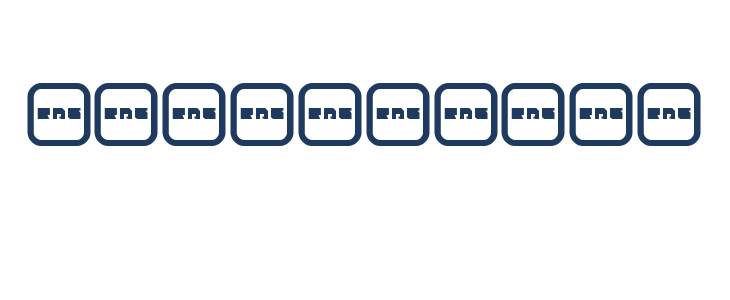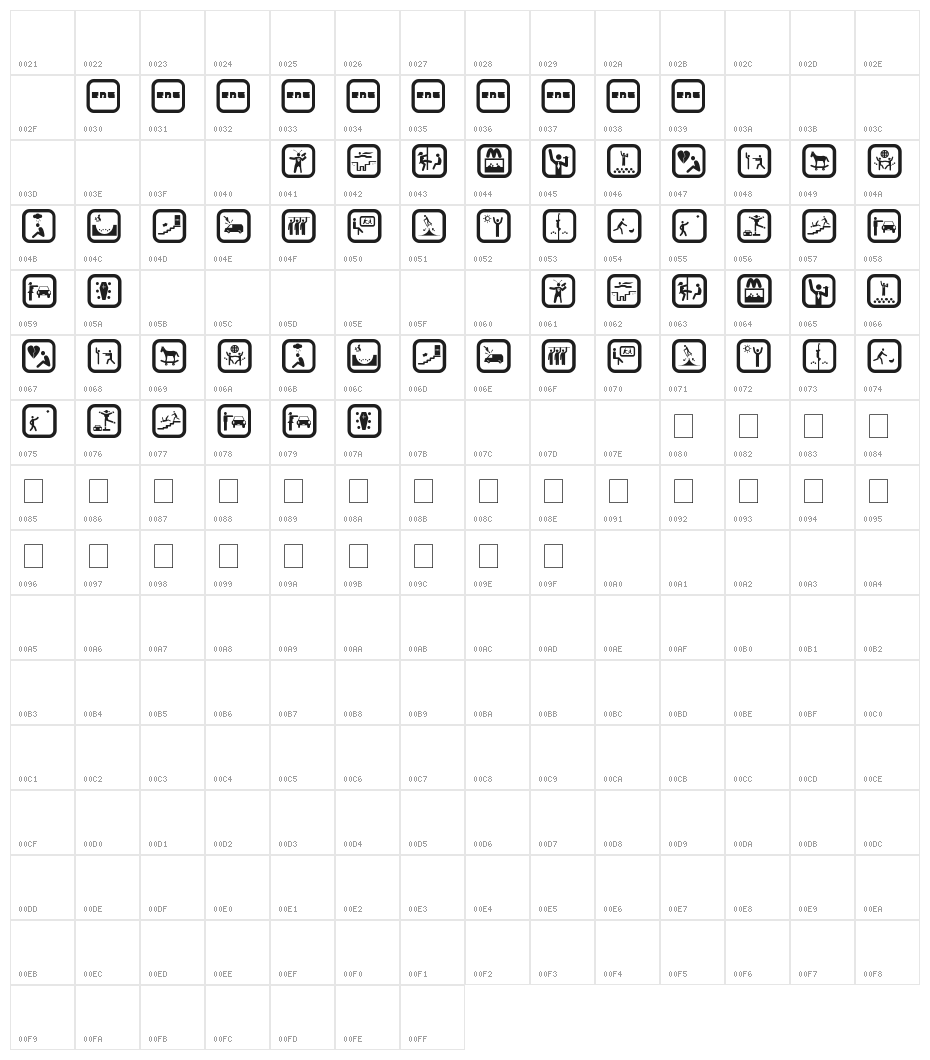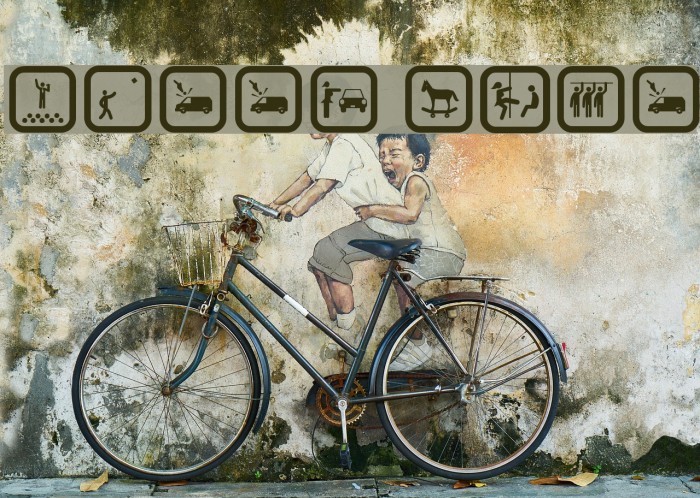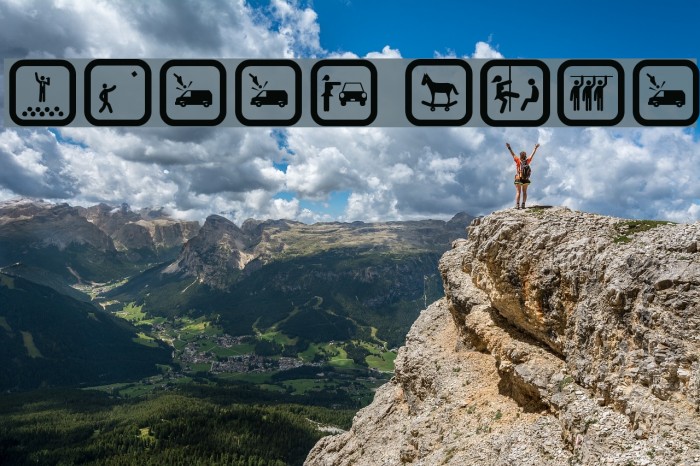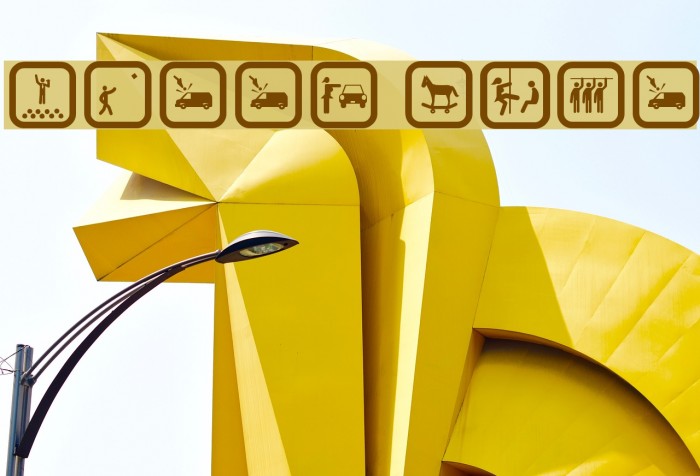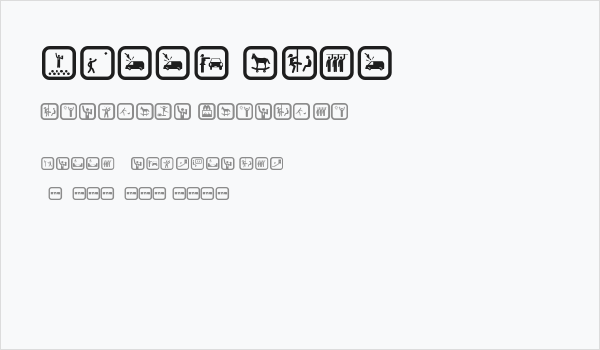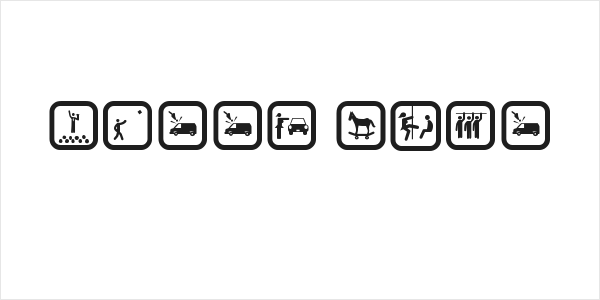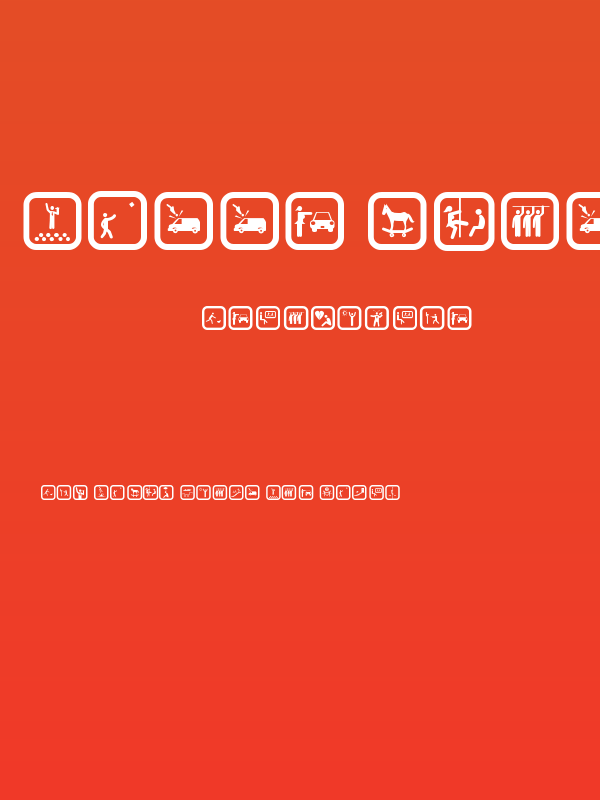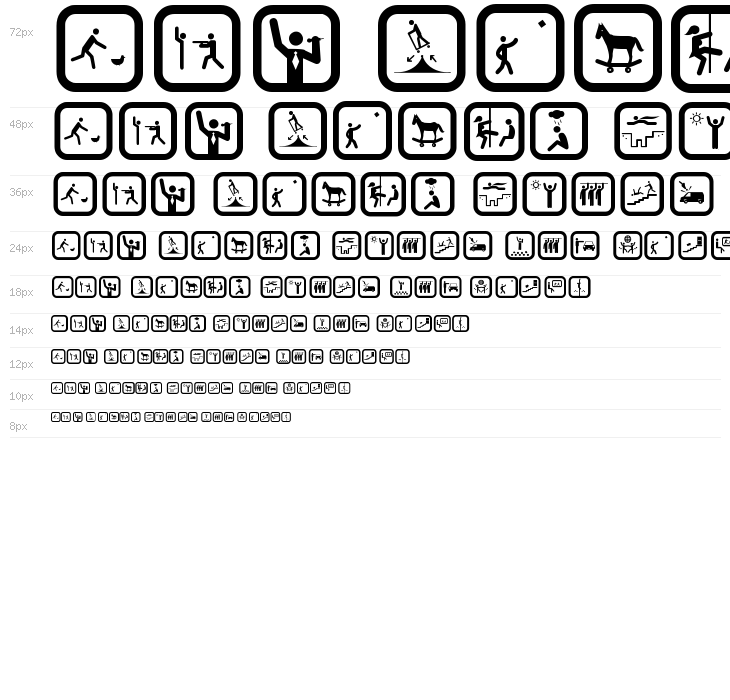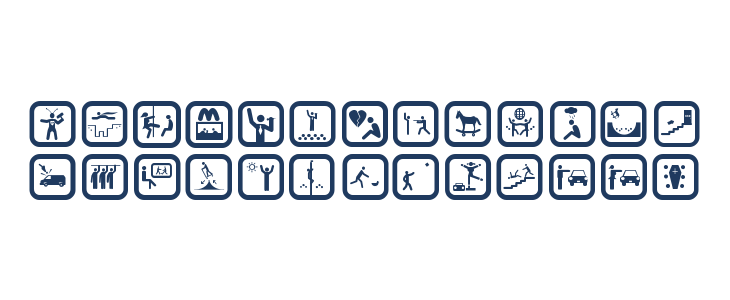
FUNNY ICON Font
FUNNY ICON Description
A playful icon-based font where each character is represented by a humorous pictogram inside a rounded square border, featuring stick figures and simple objects in various comedic scenarios. The icons are bold, highly legible, and have a consistent visual weight and spacing.
| Overall Style | Playful, Humorous, Decorative |
| Use Case | Logos, Headlines, Posters, Educational graphics |
| Proposed Projects | ChildrenΓ’β¬β’s books, party invitations, comic strips, playful branding, educational materials, infographics. |